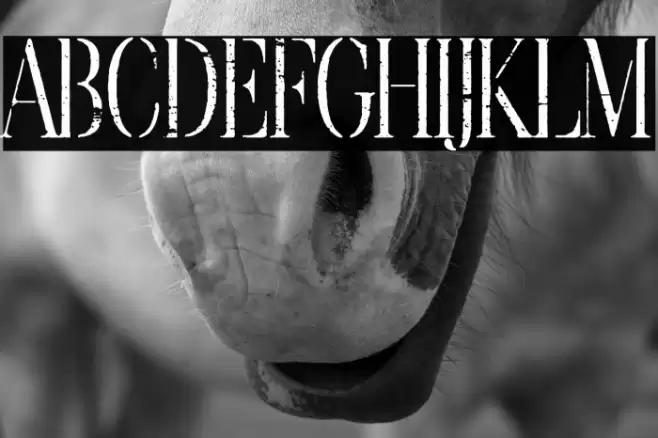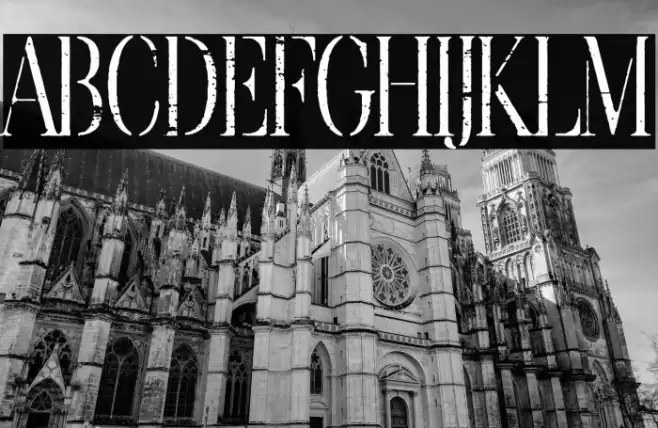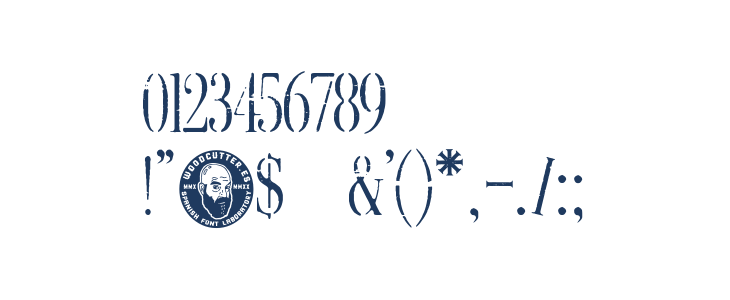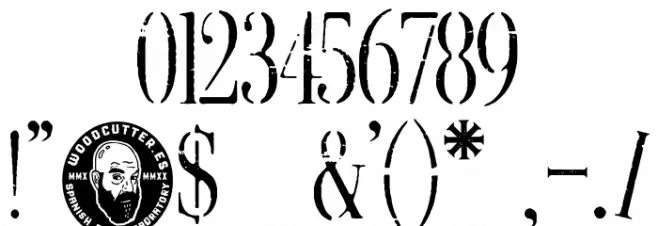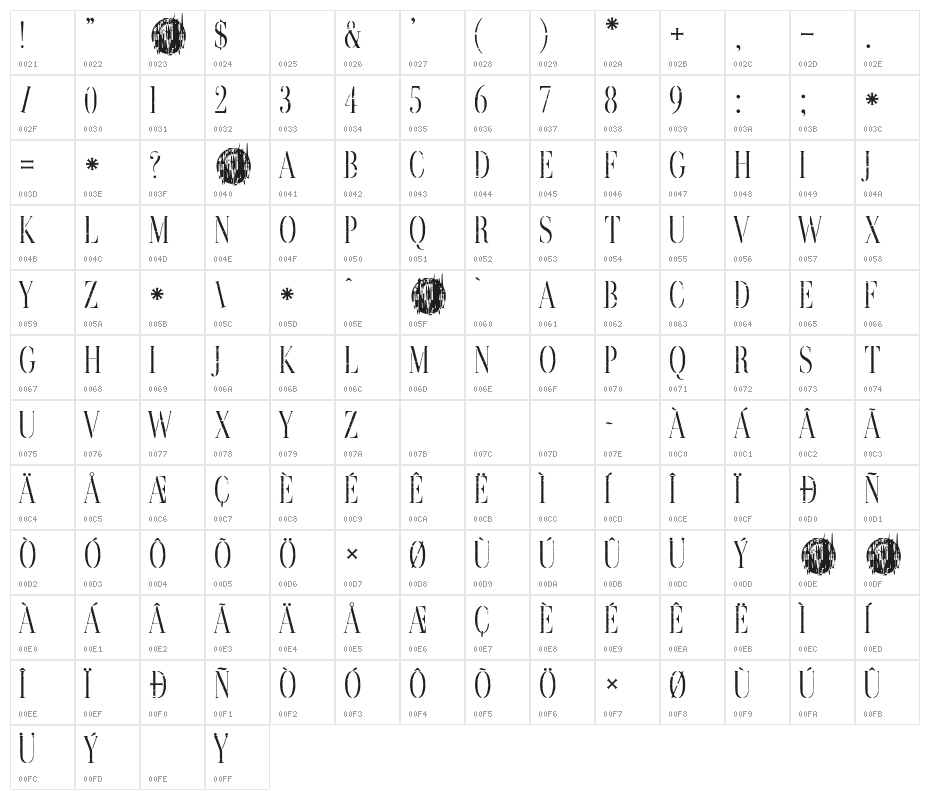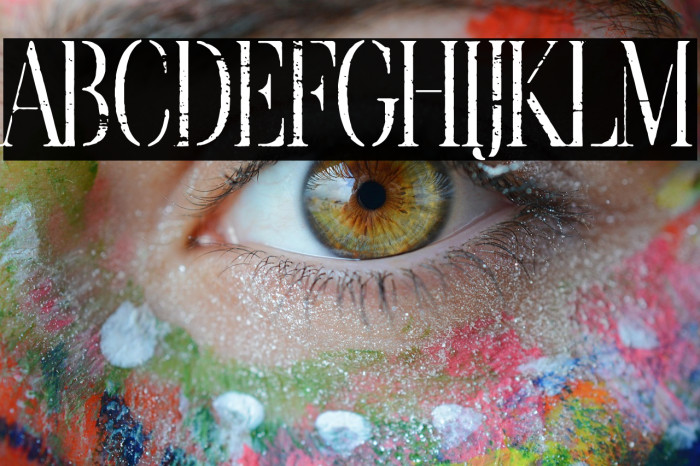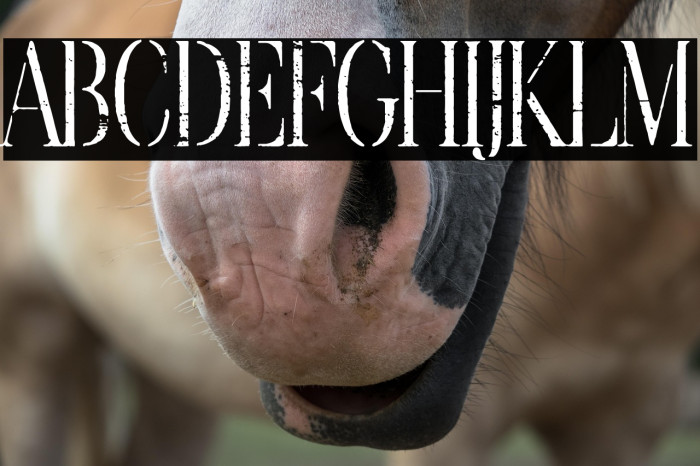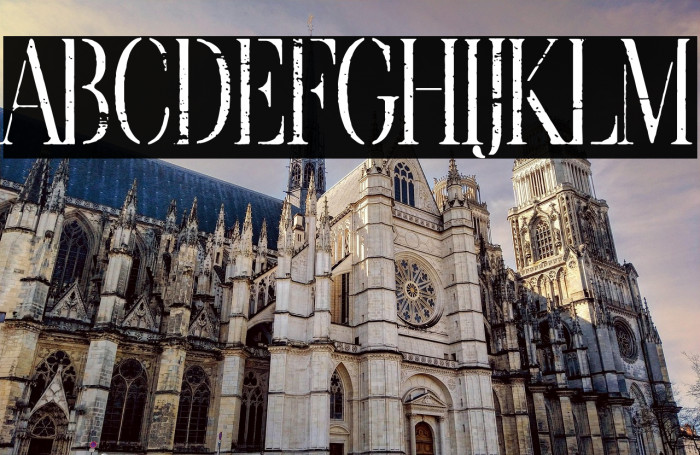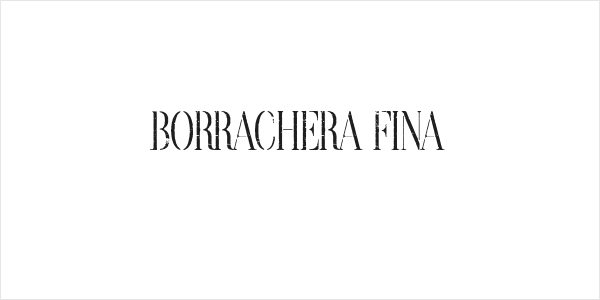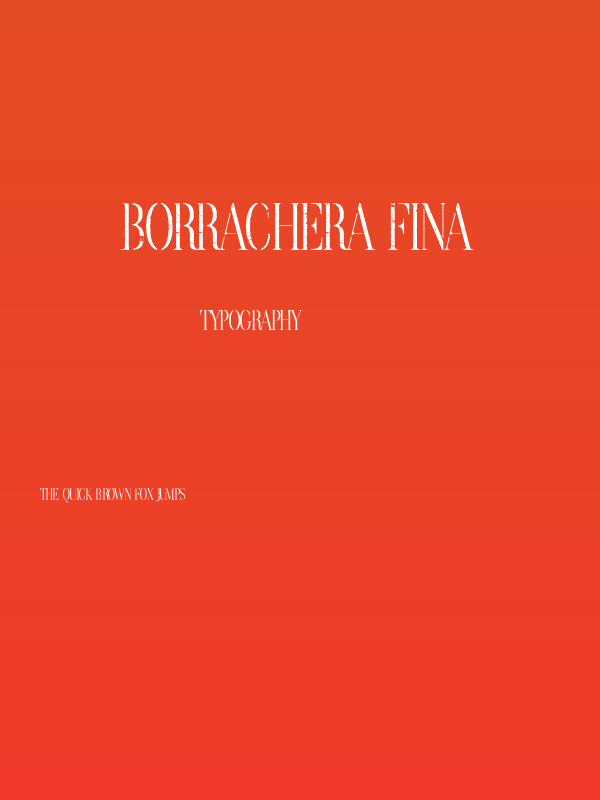
Borrachera Fina Font
Borrachera Fina Description
This font features a distressed, vintage style with a stencil-like appearance. The characters are tall and narrow, with sharp serifs and a rough texture that gives them an aged, weathered look. The uppercase and lowercase letters maintain a consistent height, while the numbers and special characters follow the same distressed aesthetic. The font's unique style is reminiscent of old signage or posters, making it ideal for projects that require a retro or industrial feel. The texture adds depth and character, making it stand out in any design.
A distressed, vintage-style font with a stencil-like appearance and sharp serifs from Uncategorized fonts.
- Overall Style: Vintage